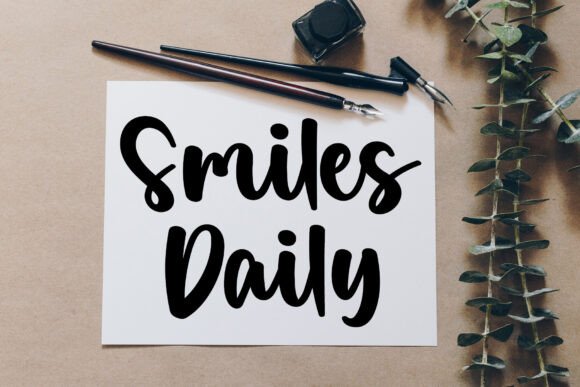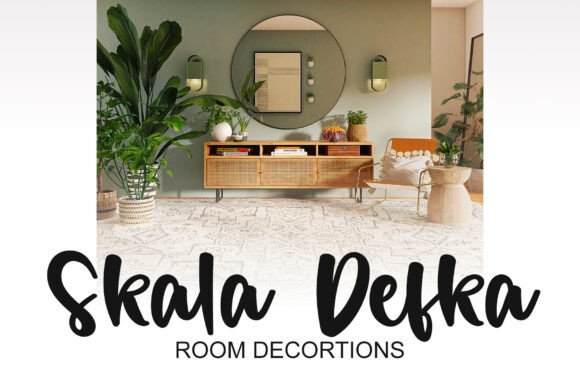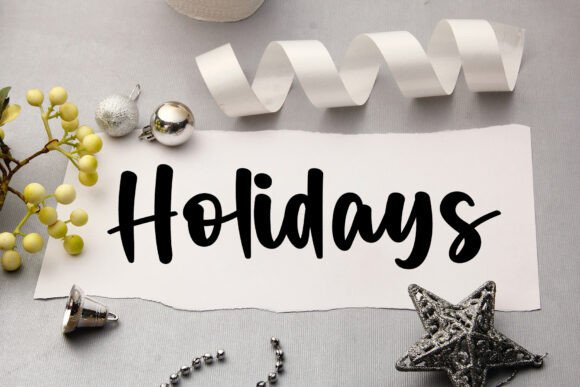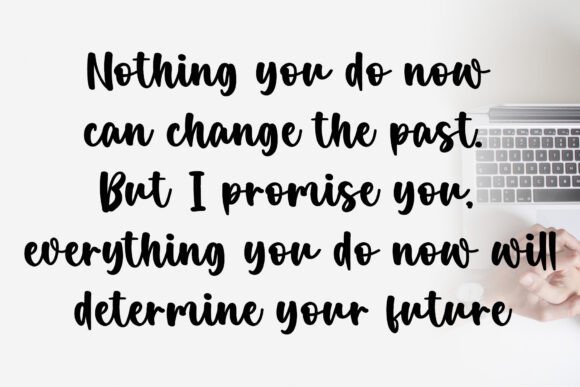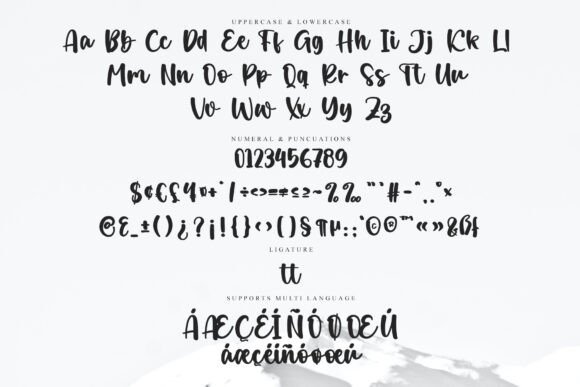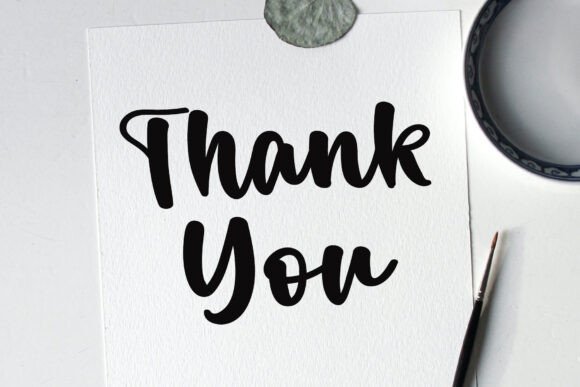
Introduction to Point Beach Font
As a designer, there’s nothing quite like the thrill of brainstorming a new creative project. You’re sipping your morning coffee, flipping through design inspiration boards, and suddenly – a spark of genius strikes. That’s exactly what happened when I stumbled upon the Point Beach Font. Its breezy, handwritten script immediately transported me to sun-kissed shores and carefree summer vibes.
With its bold, fluid strokes and playful bounce, Point Beach Font captures the essence of surf culture and relaxed coastal living. Whether you’re working on a travel branding project or designing social media graphics, this font is sure to add a touch of effortless charm to your designs. And the best part? It’s available for free download, making it a valuable resource for designers of all levels.
So, what sets Point Beach Font apart from other design resources? Its high-quality, transparent background and stylish curves make it perfect for a wide range of creative projects. In this article, we’ll dive deeper into the world of Point Beach Font and explore its many uses and benefits.
Key Features of Point Beach Font
- Unique, hand-drawn design style perfect for creative projects
- Transparent background, making it easy to layer with other design elements
- Includes a range of weights and styles to suit various design needs
Honest Review: Point Beach Font
I recently stumbled upon the Point Beach Font and was excited to give it a try. As a designer, I’m always on the lookout for high-quality fonts to elevate my creative projects. This font did not disappoint.
- ✨ Beautiful, cursive script: The Point Beach Font features a lovely, flowing script that’s perfect for adding a touch of elegance to your designs.
- ✨ Transparent background: This font has a transparent background, making it easy to overlay on images or use with other design elements.
While the Point Beach Font is a great addition to any design resource, there are a few limitations to be aware of:
- ⚠️ Limited character set: The font only includes a limited character set, which may not be suitable for longer blocks of text.
- ⚠️ Not ideal for body text: Due to its cursive script, this font may not be the best choice for body text, where readability is key.
Overall, I’m impressed with the Point Beach Font and would definitely recommend it for designers looking to add a touch of elegance to their creative projects. Just be aware of its limitations and use it accordingly.
Tips for Getting the Most Out of Point Beach Font
To get the most out of the Point Beach Font, consider using it in conjunction with a transparent background to create a clean and modern design. Experiment with different font sizes and styles to find the perfect look for your creative project.
Common Use Cases for Point Beach Font
The Point Beach Font is perfect for a variety of creative projects, including social media graphics, blog posts, and marketing materials. Its high-quality design and transparent background make it a versatile choice for any design need.